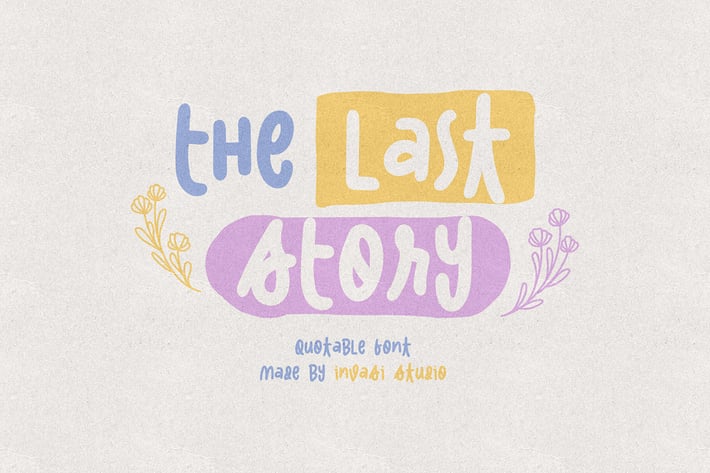
The Last Story | Quotable Font
The Last Story born from handwritten style combines fun glyph with all-caps font; delivering a fancy hand draw that is guaranteed to add an eye-catching suitable for your quotes, logo designs, brand imagery, product packaging, merchandise & social media posts.
Multi-language
Alternates